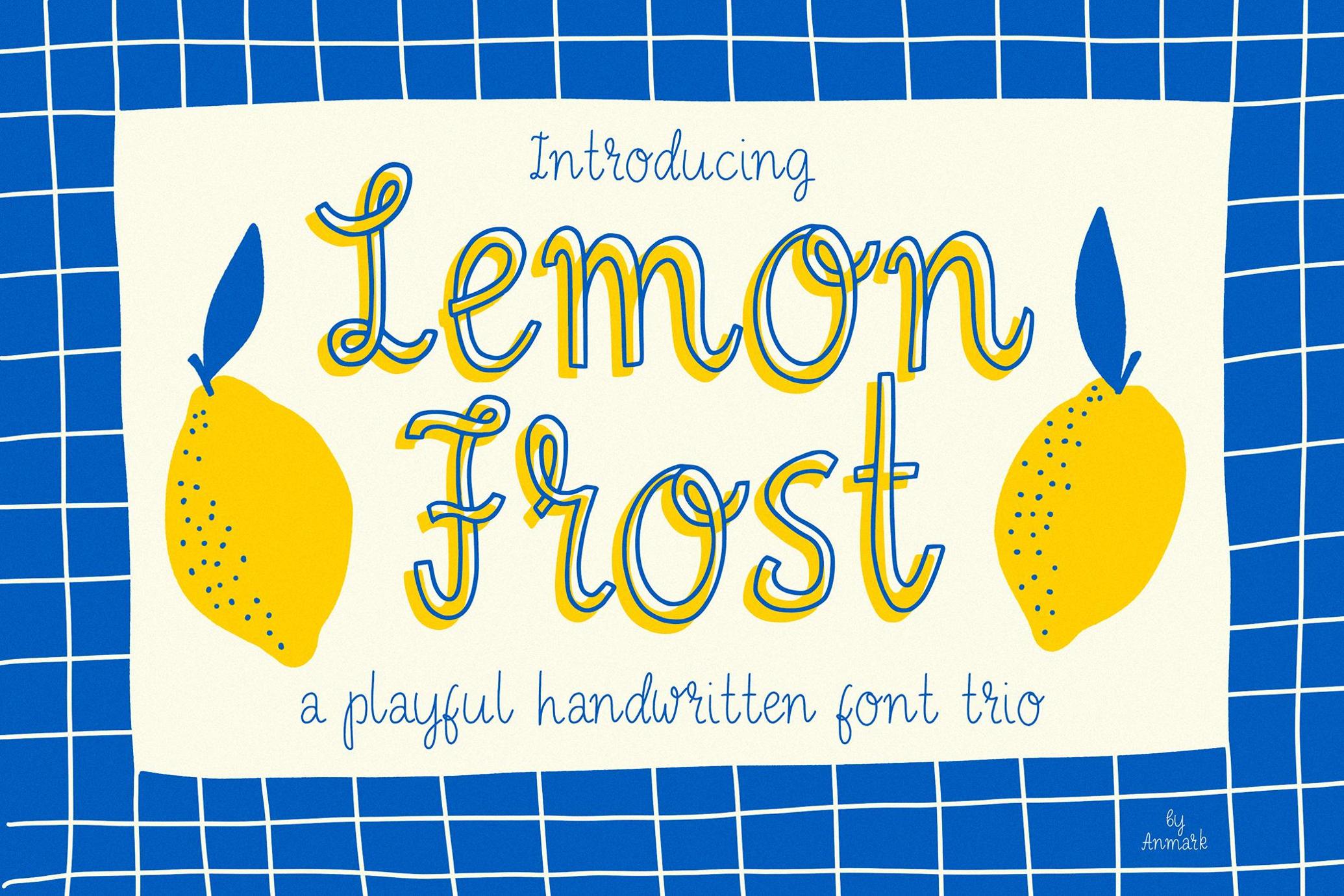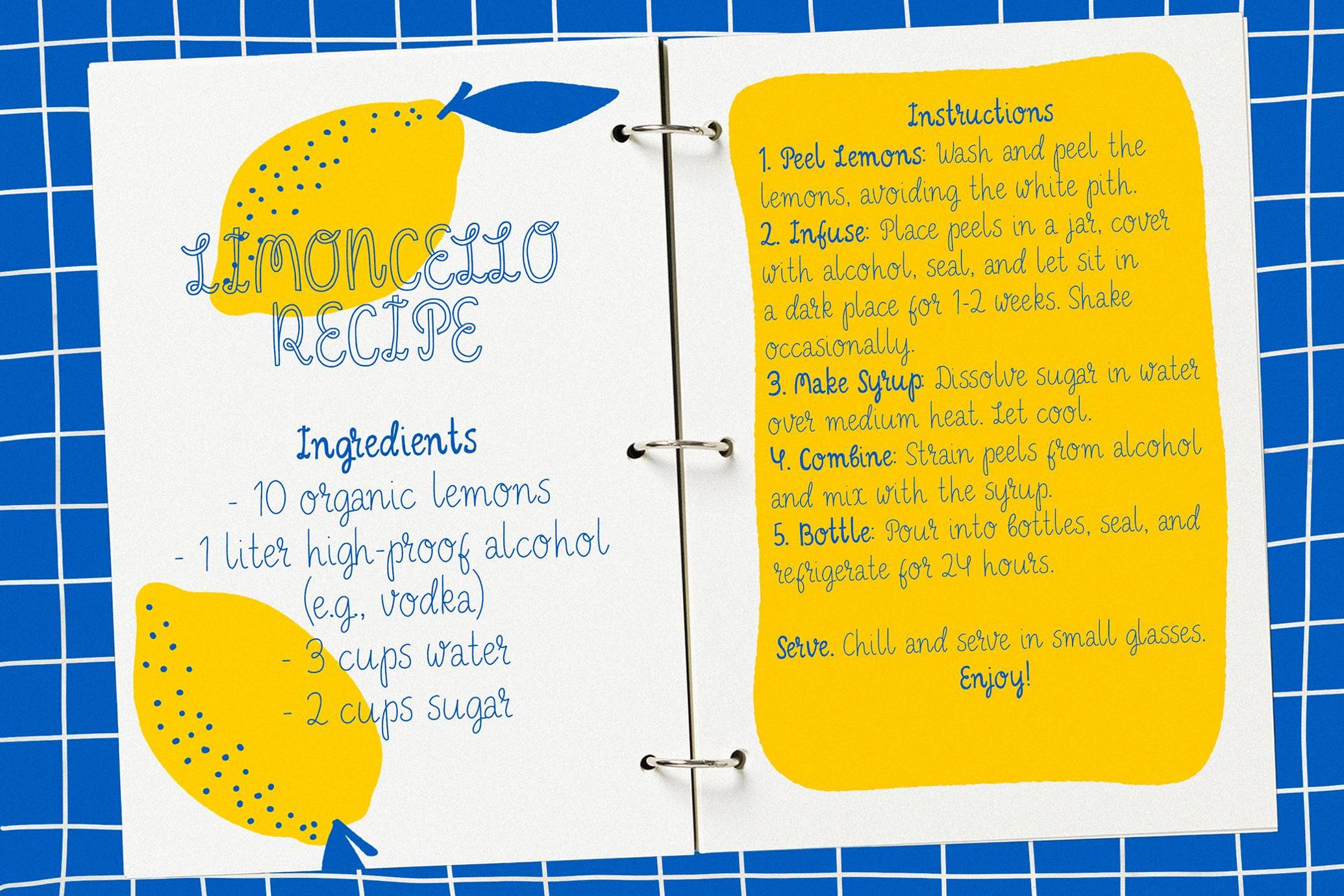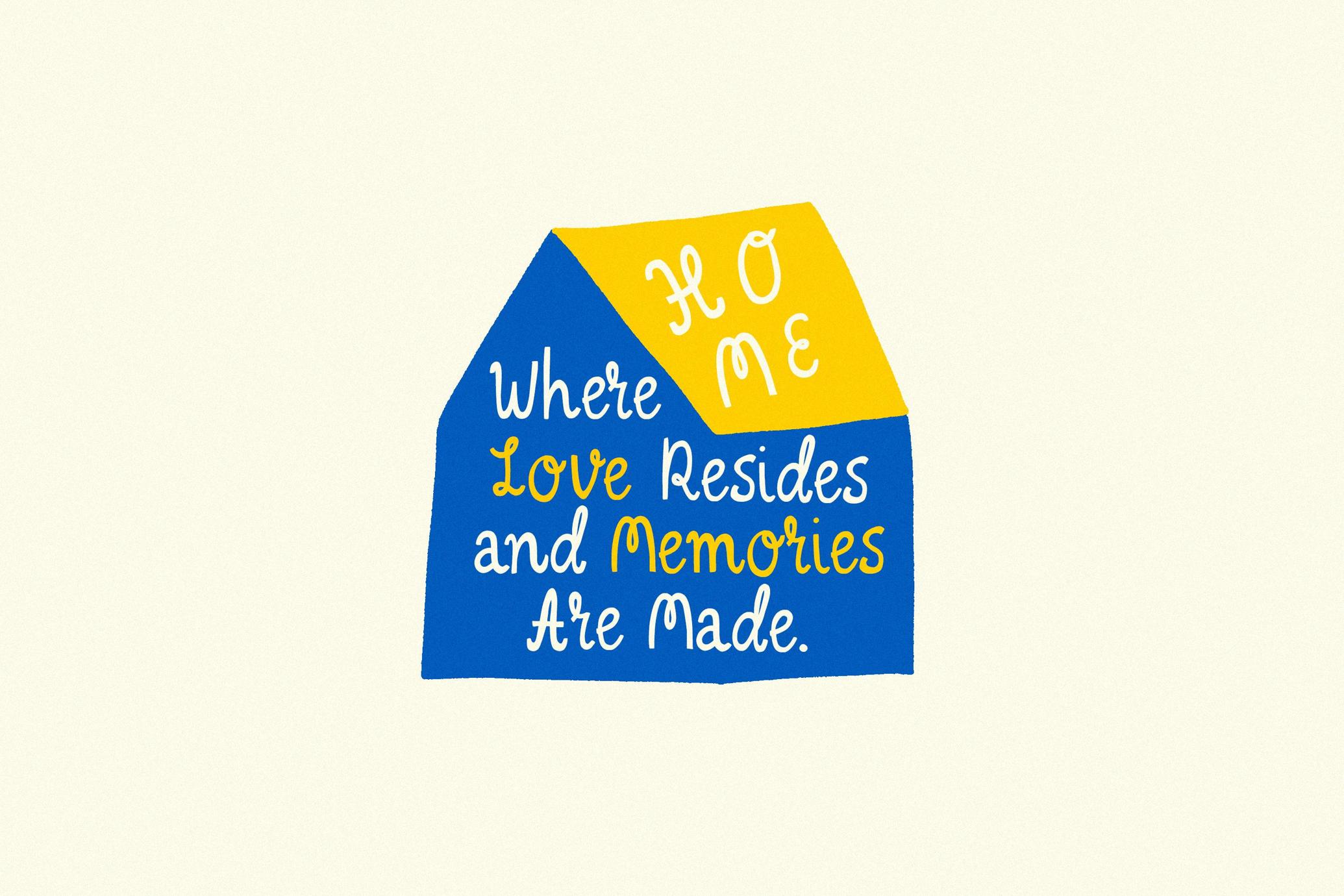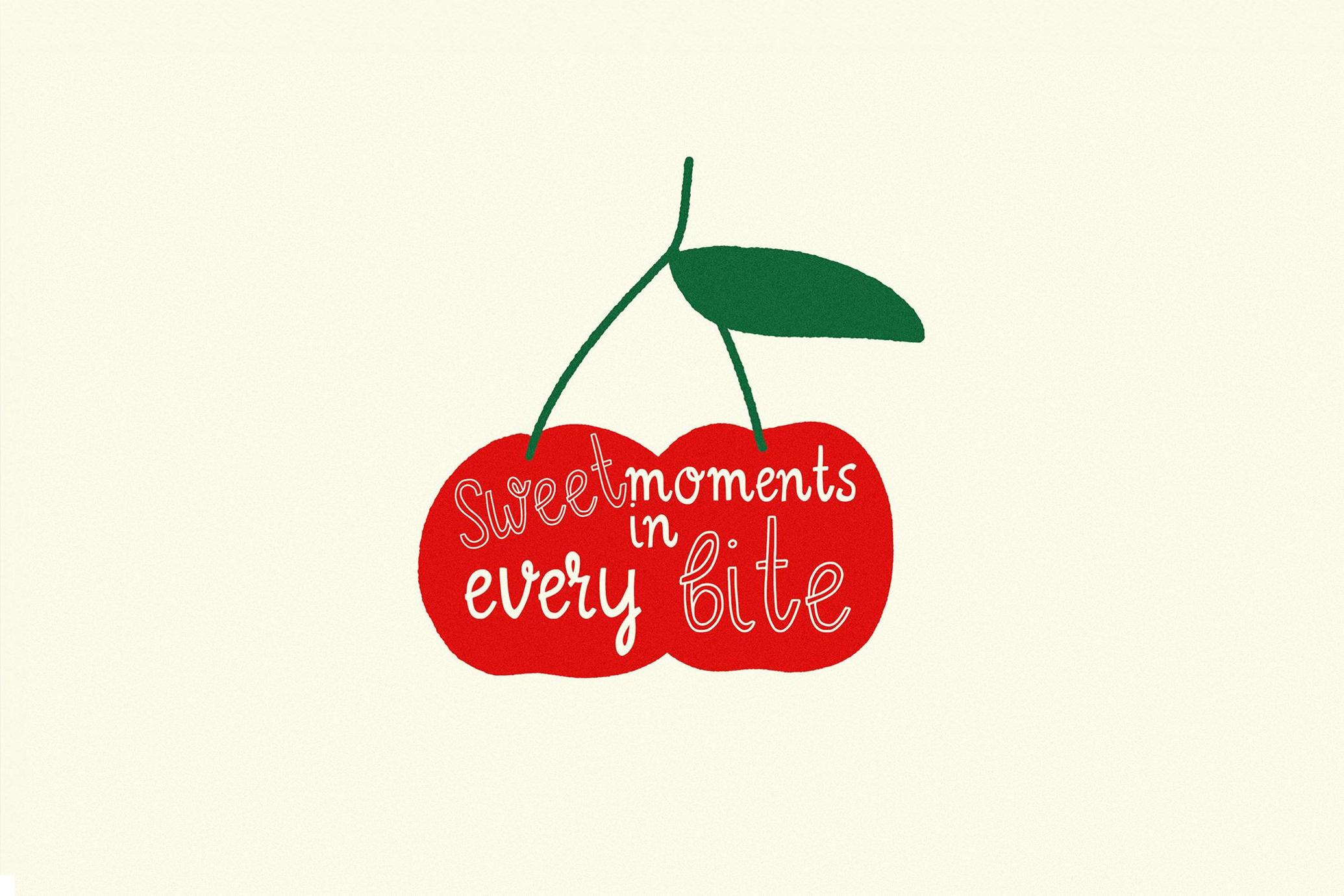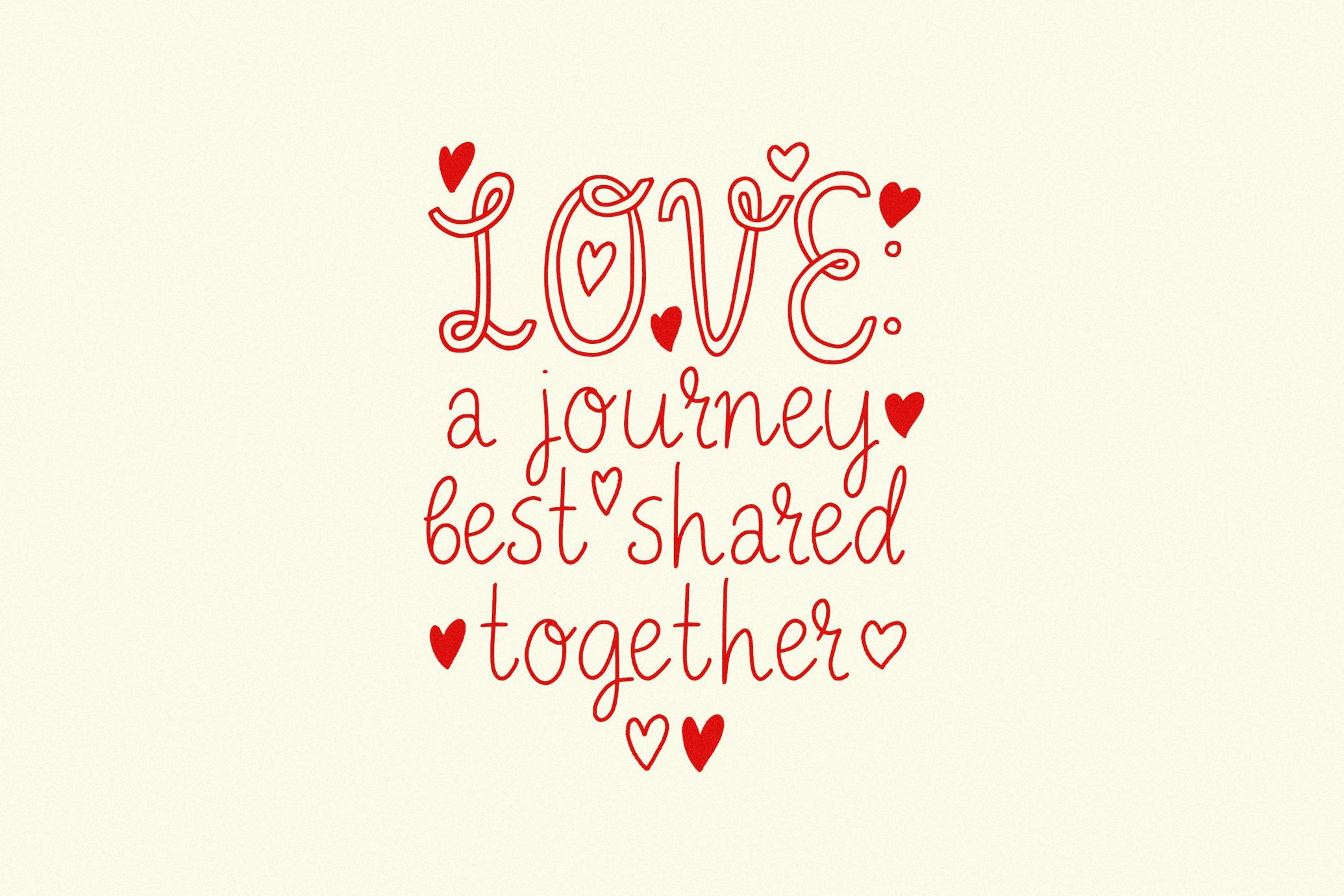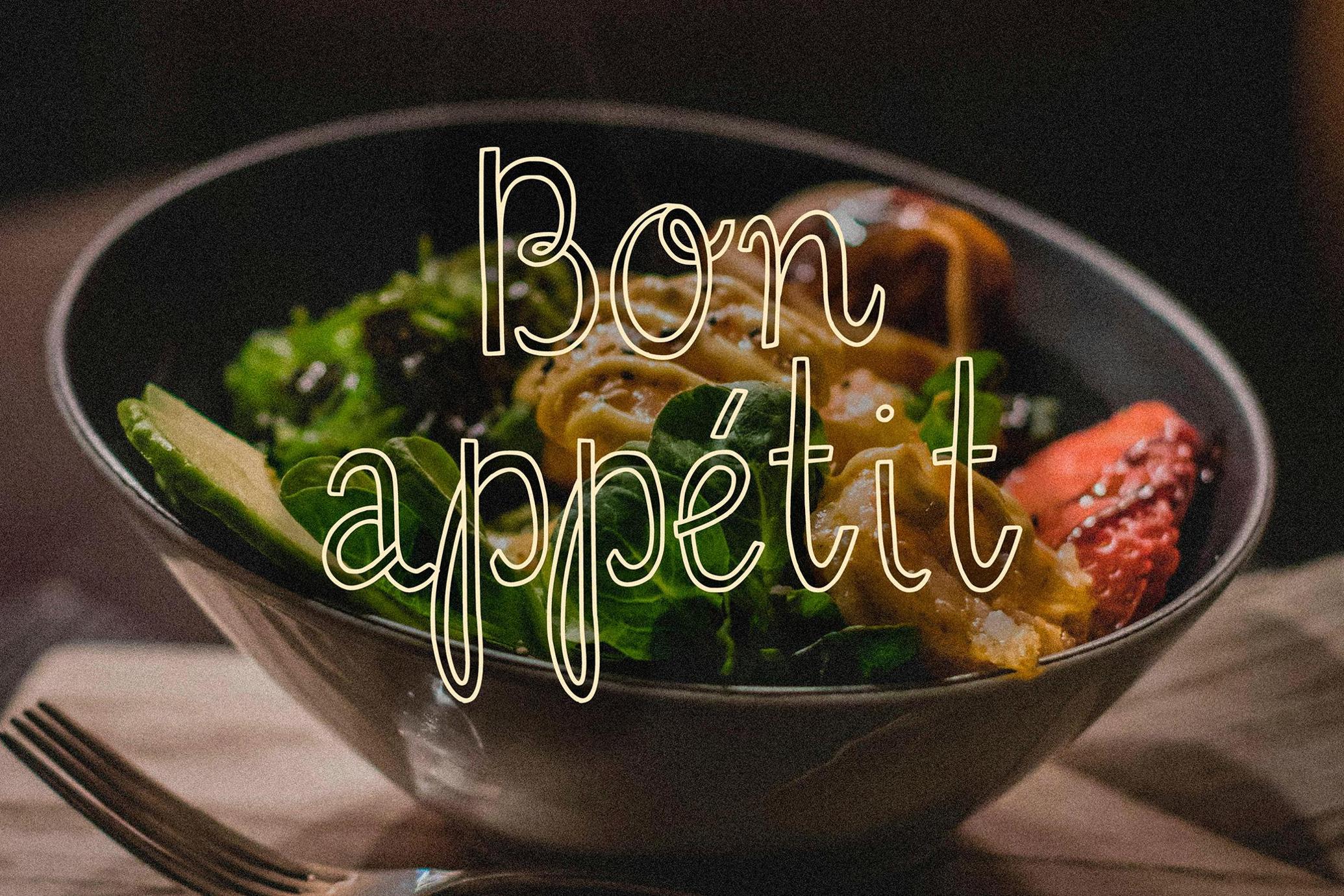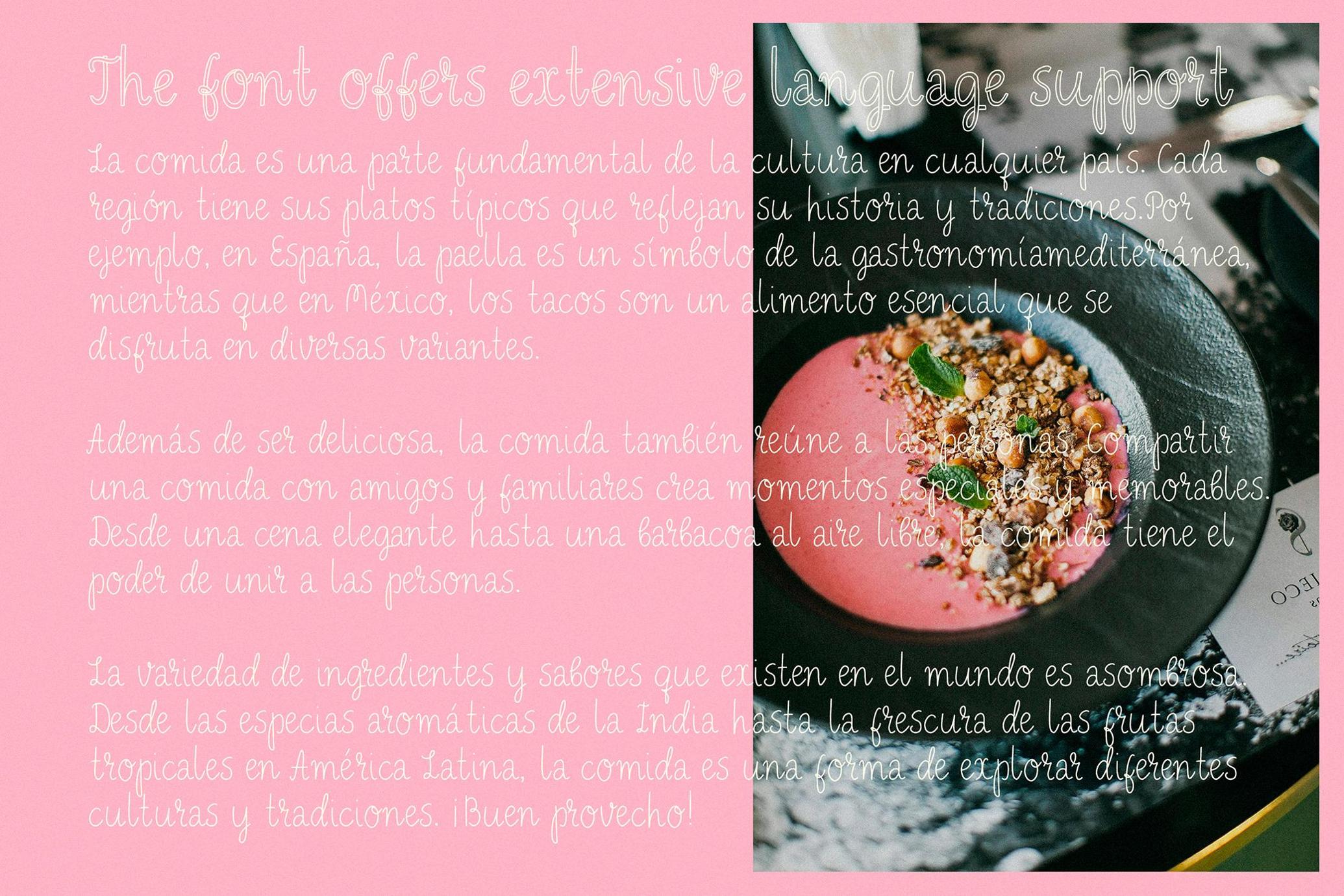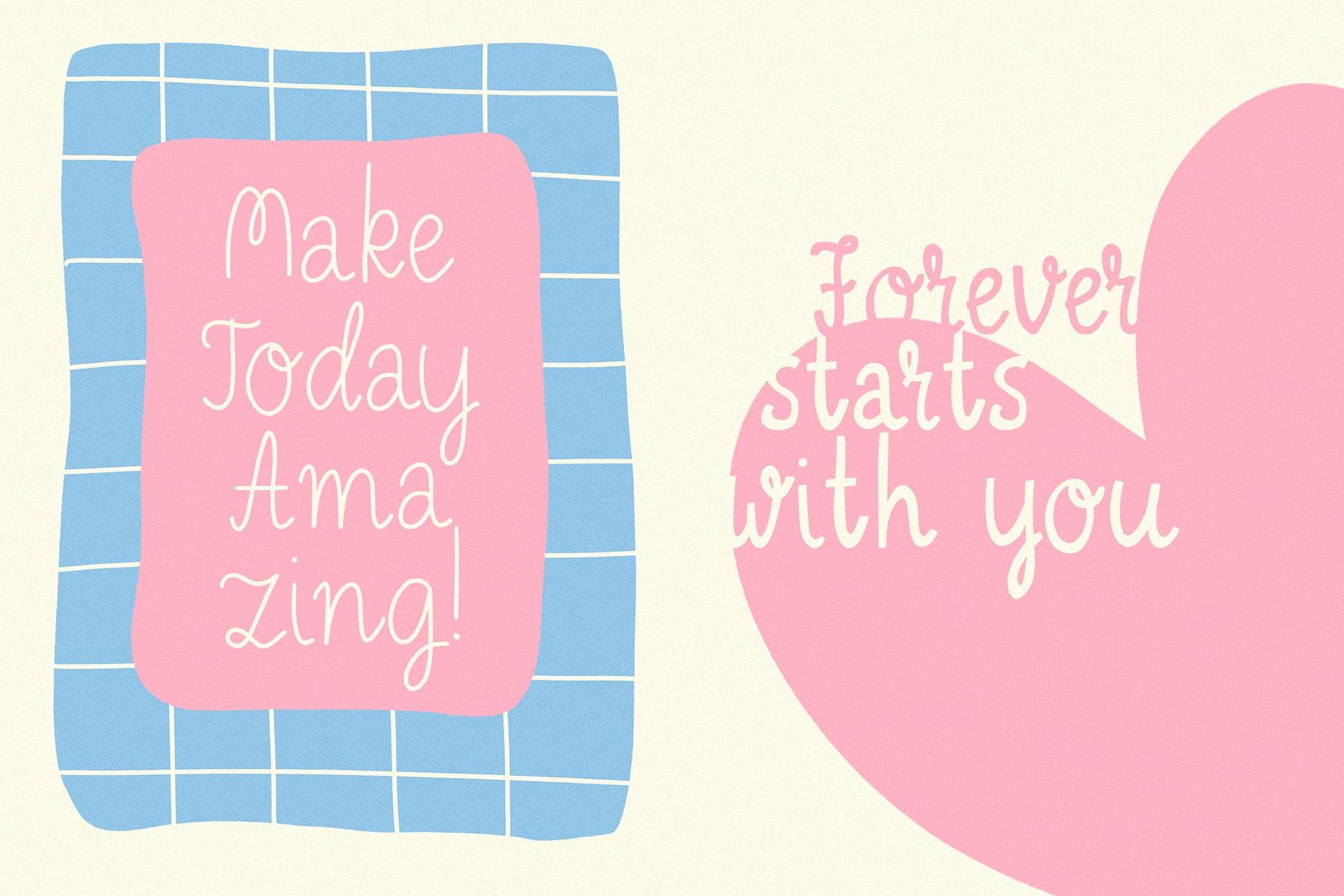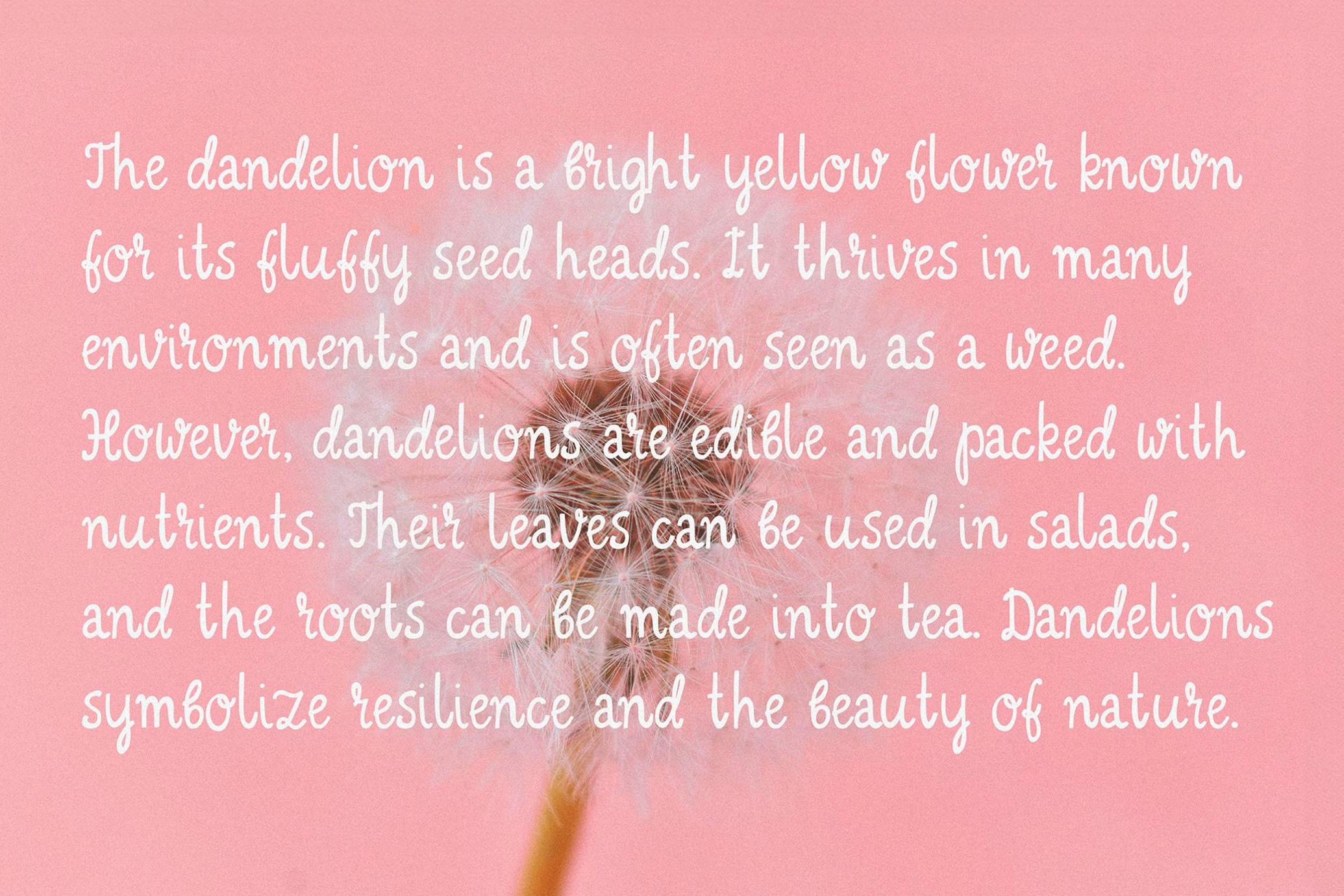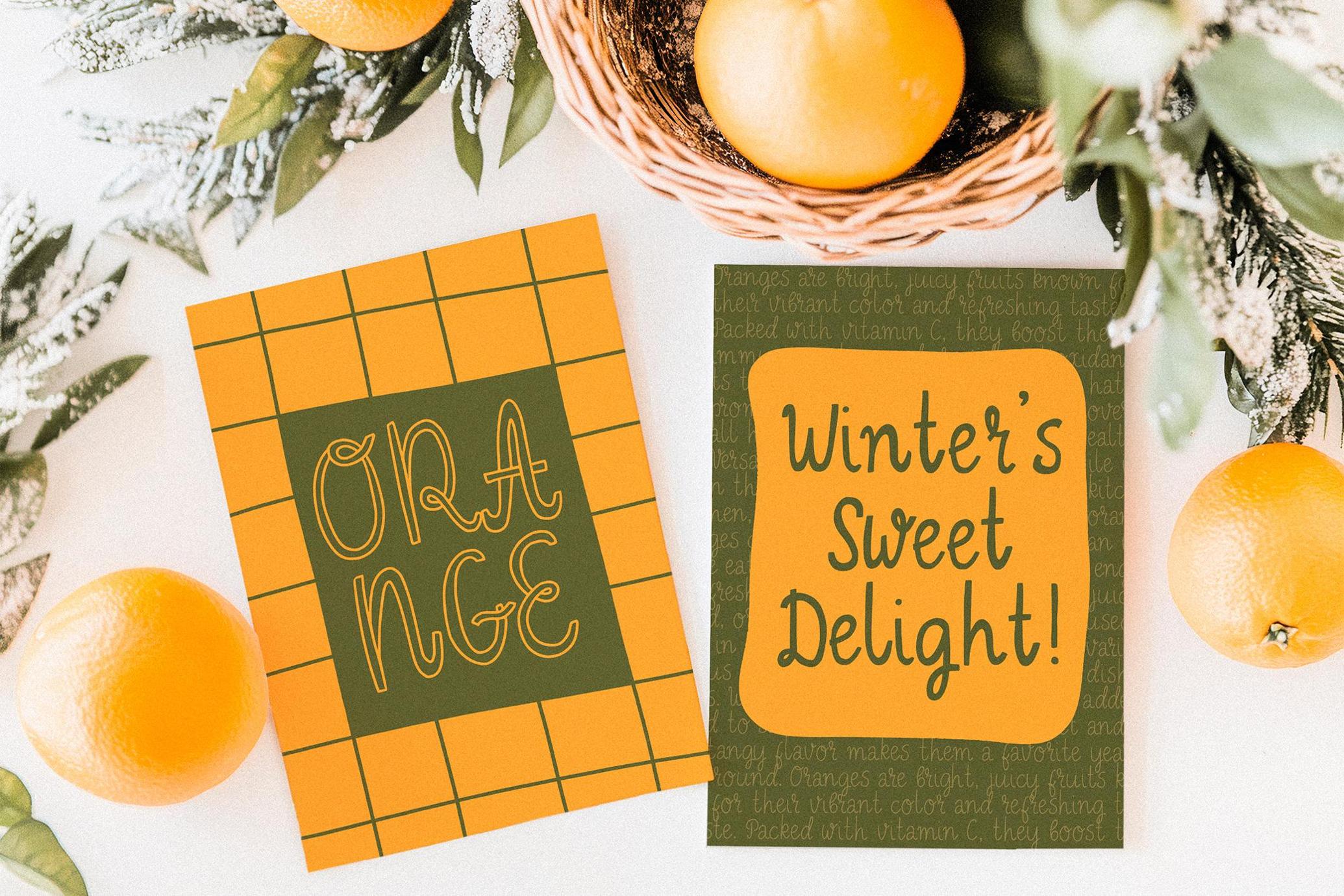
Lemon Frost | Playful Font Trio
Lemon Frost is a sunny, handwritten font trio that merges sweetness with structure. Its bouncy curves and rounded forms carry plenty of quirk to feel personal. The family includes three styles — Regular, Bold, and Outline — designed to play off one another in layered compositions or standalone headlines. All styles support multilingual Latin-based languages, and provide a complete character set.
Use it for children’s books, party invites, illustrated recipes, classroom materials, brand packaging, quote prints, greeting cards, and playful web assets.